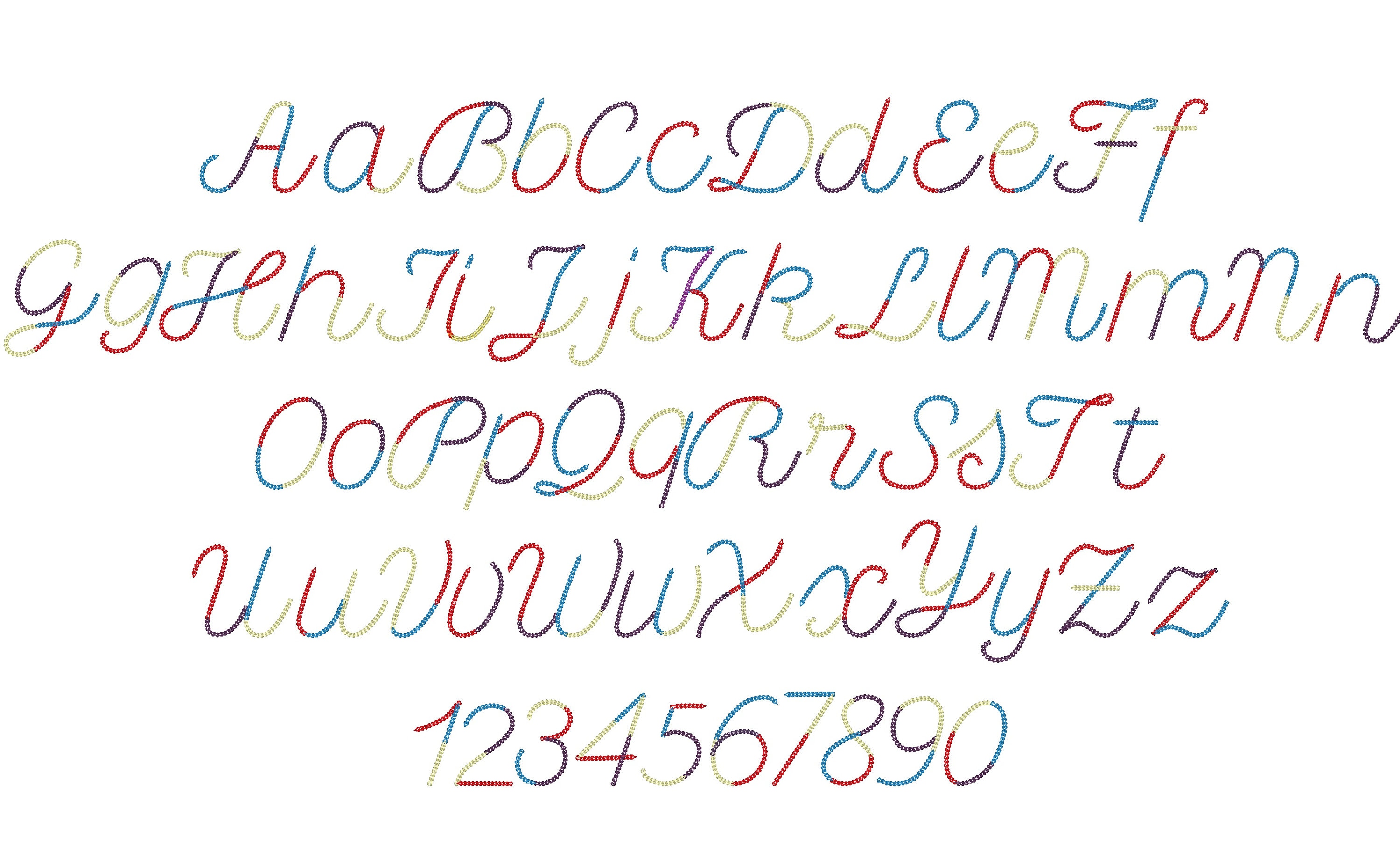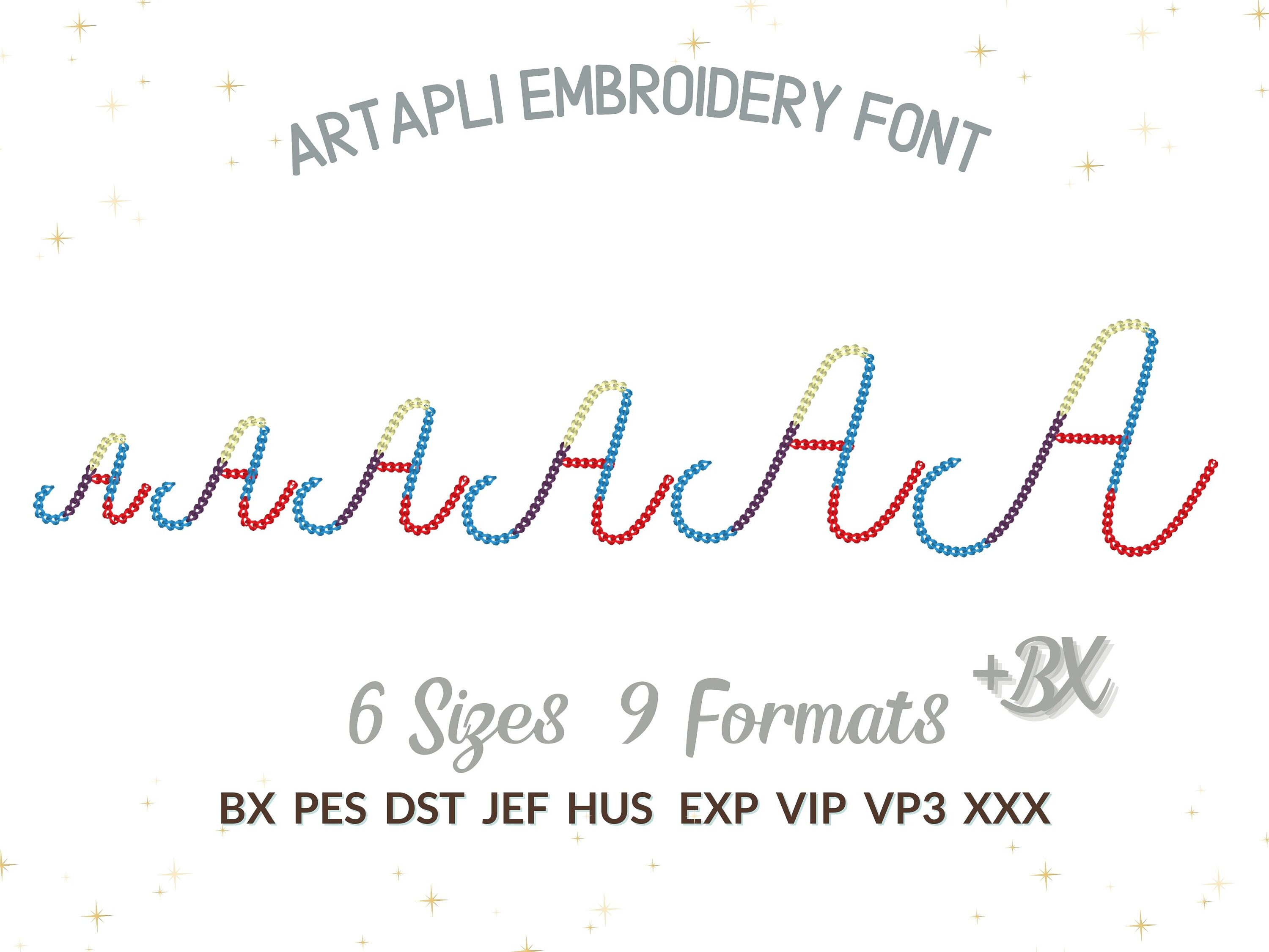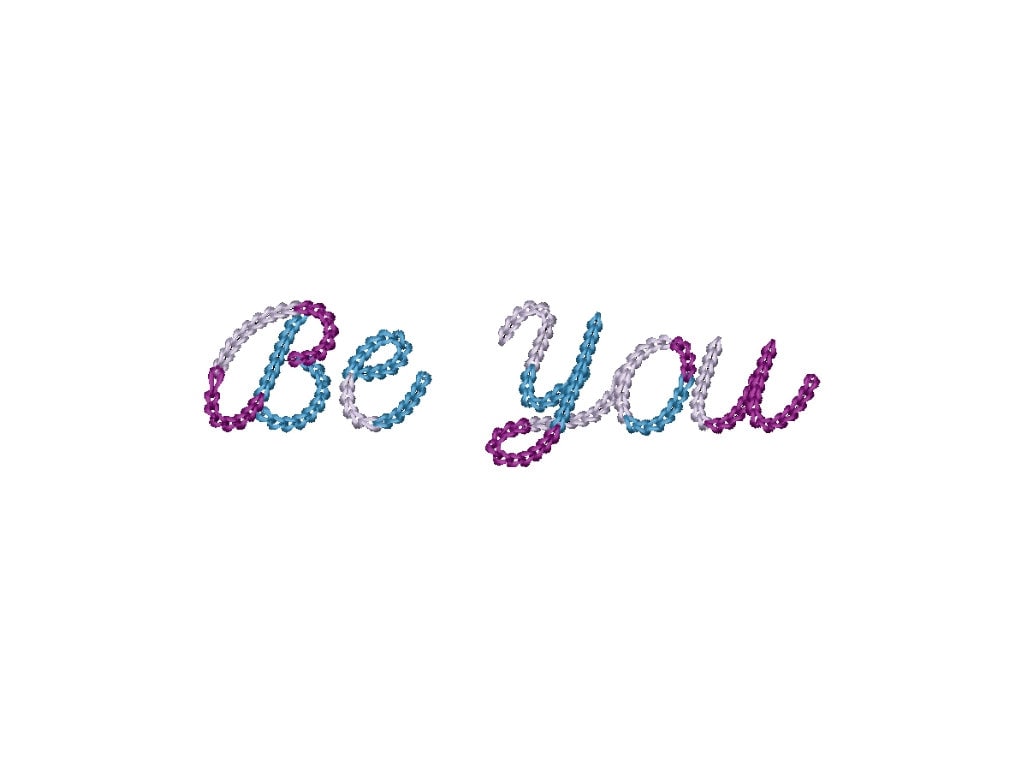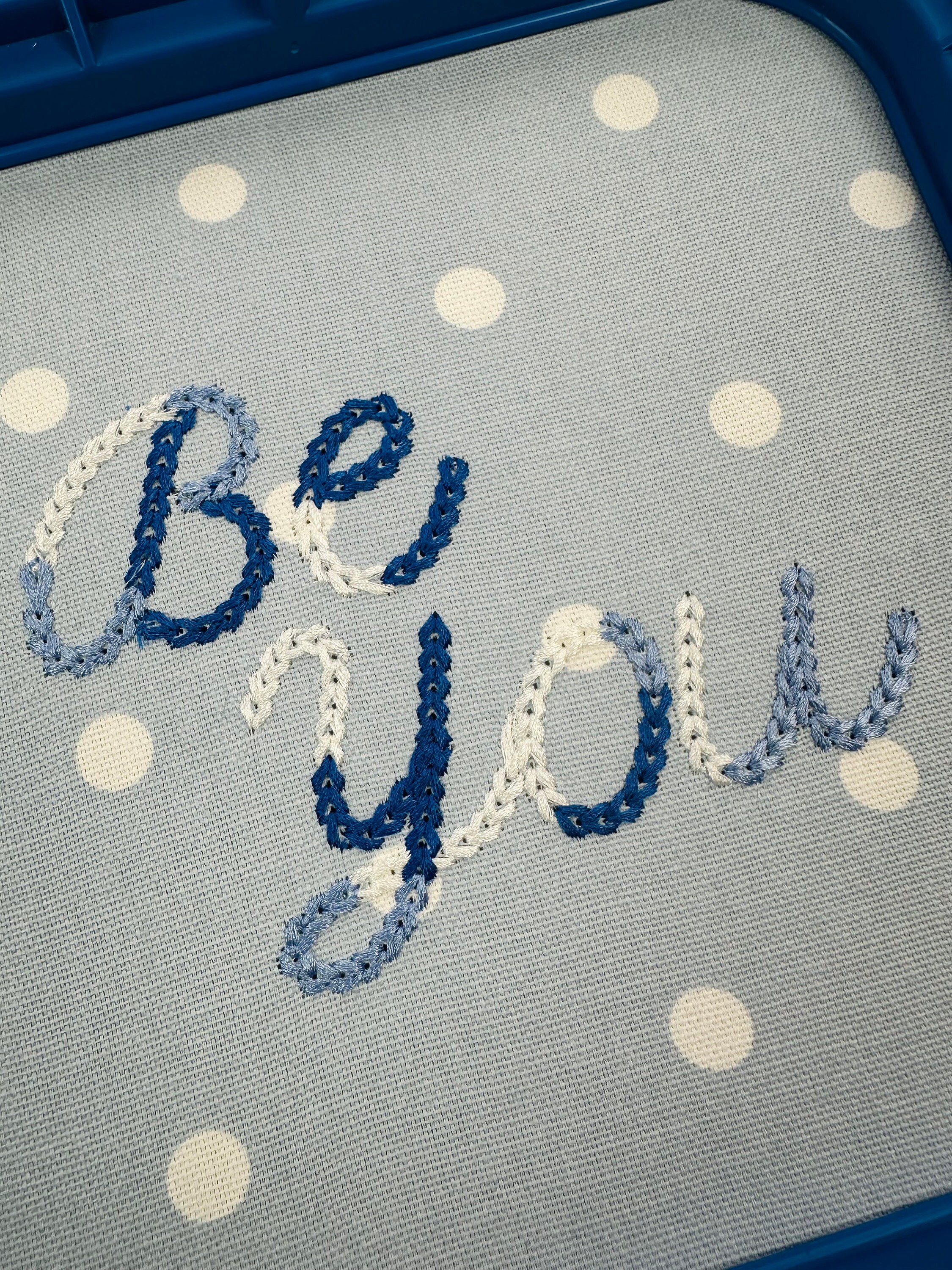
Color smash light stitch Chain FONT machine embroidery designs in assorted mini sizes alphabet letters playful kids name monogram, and BX
Whole alphabet A-Z uppercase and lowercase letters, and numbers 0-9.